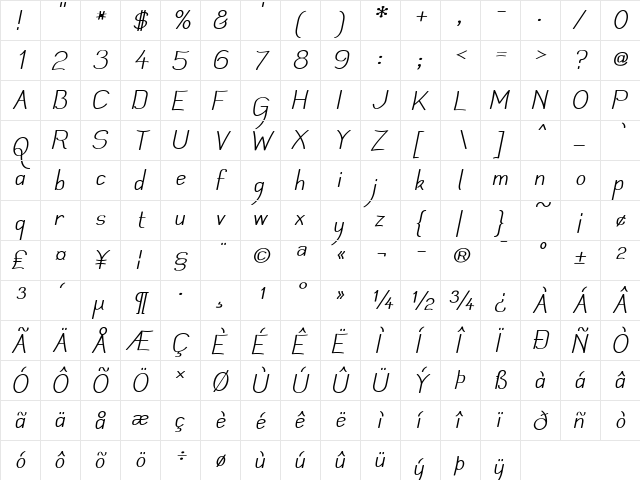
Mechanihan Italic
Design Context for Mechanihan Typeface
Mechanihan is a composed and adaptable typeface that performs quietly and consistently across a wide range of design contexts. The slanted form adds forward momentum and visual energy.
Pro Tip: Try Mechanihan for annotation and caption copy alongside an upright companion — the contrast in angle creates a dynamic but ordered typographic system.